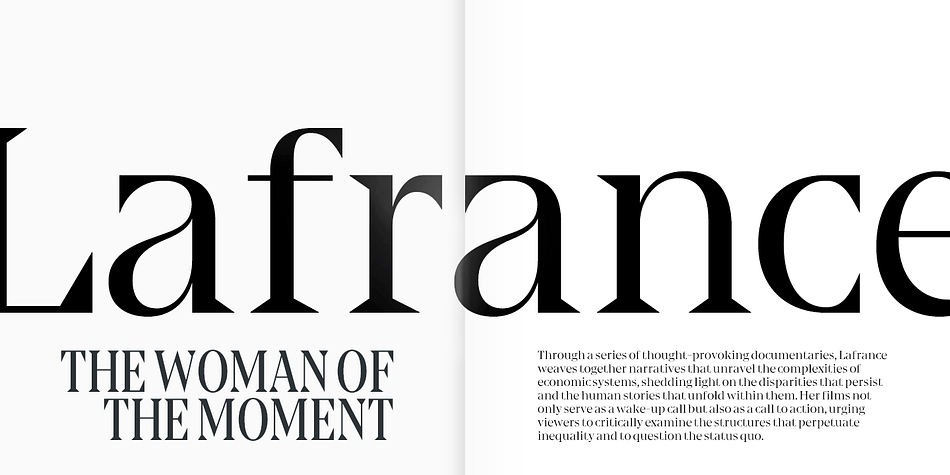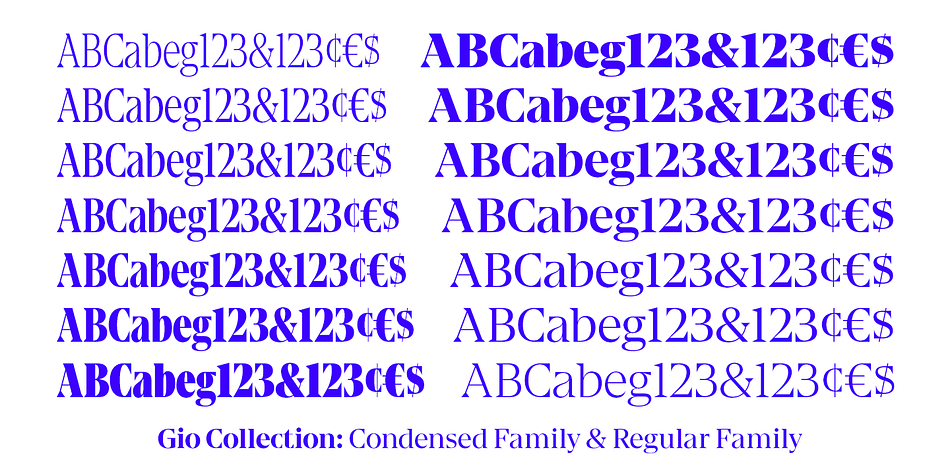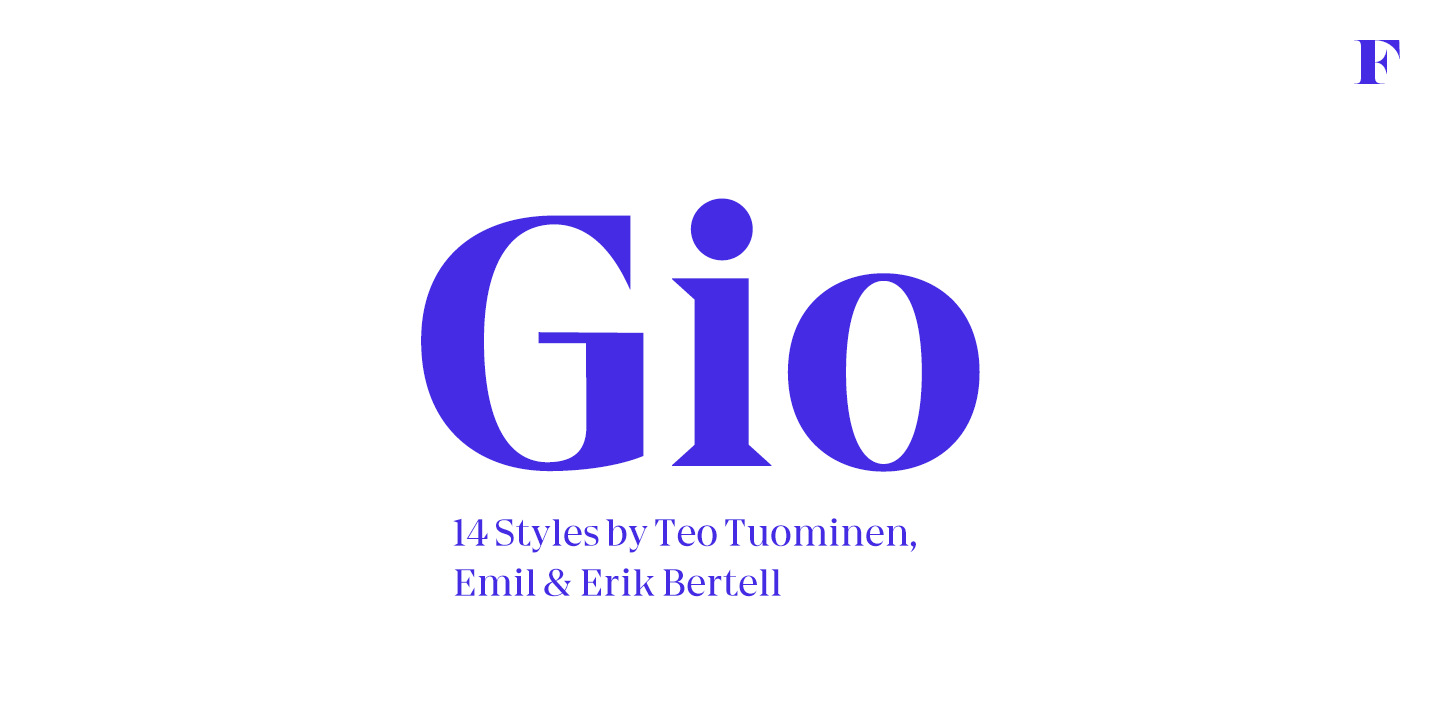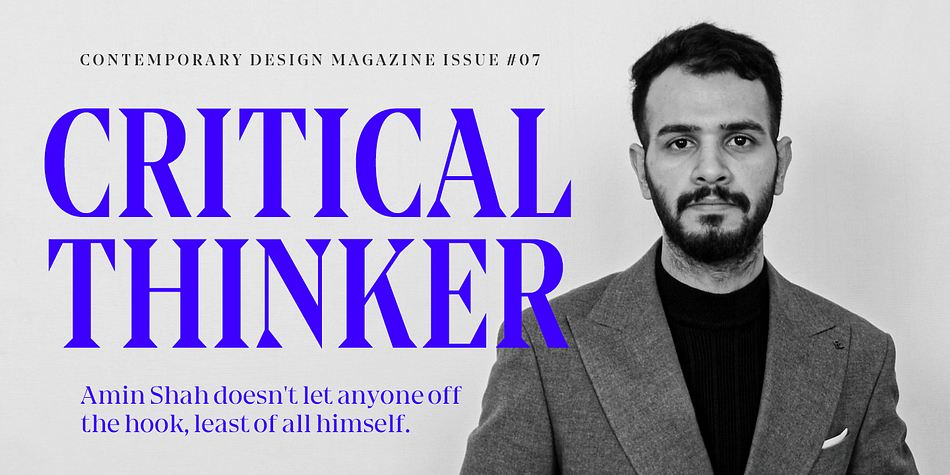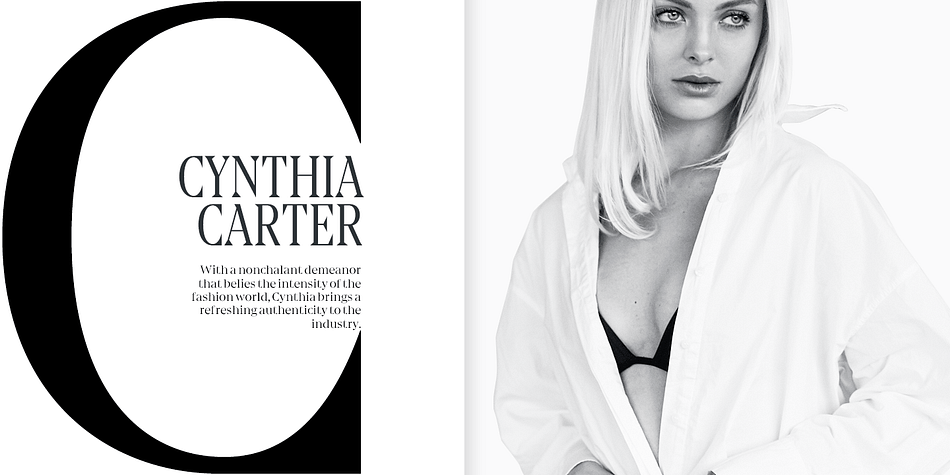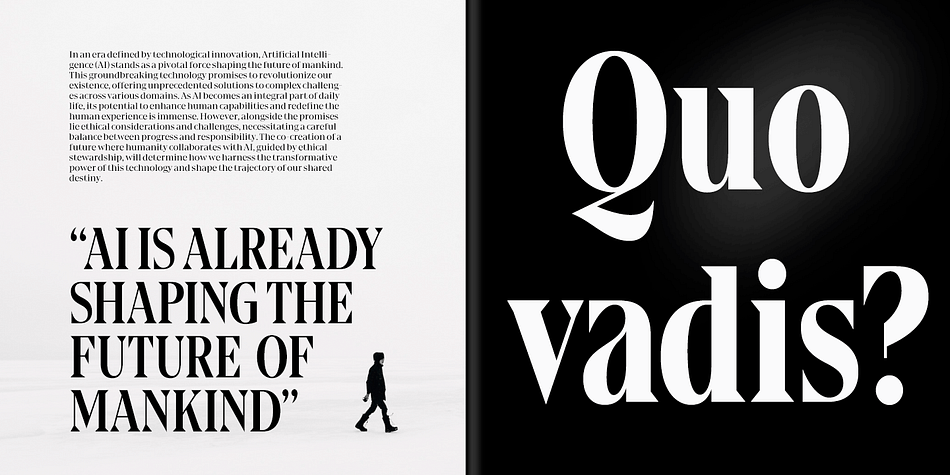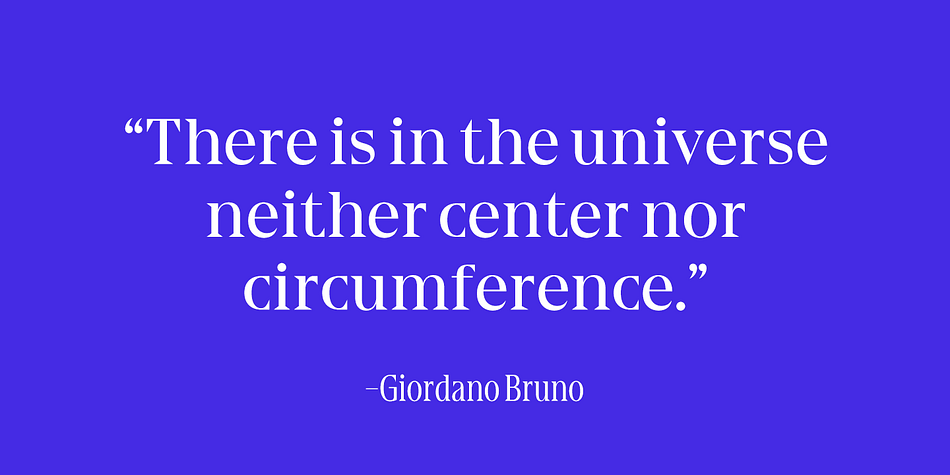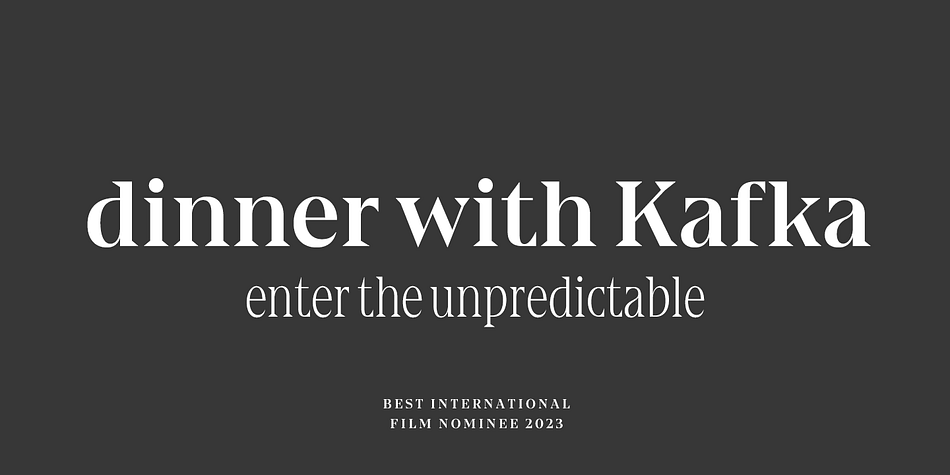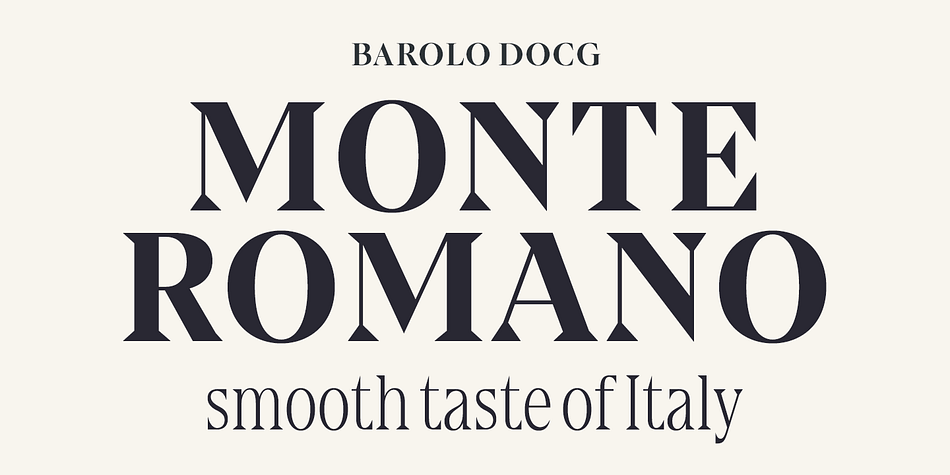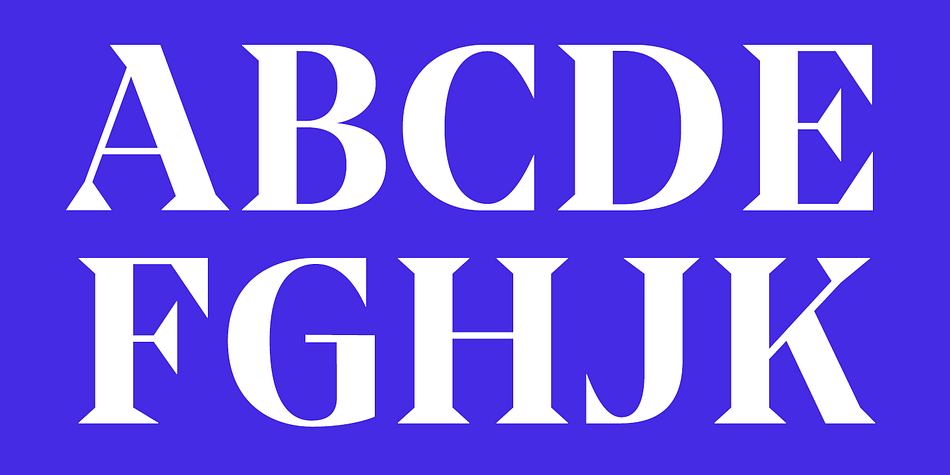
Gio
Designed by Teo Tuominen, Erik Bertell and Emil Bertell, Gio is a serif font family. This typeface has fourteen styles and was published by Fenotype.
Gio is a wedge serif with robust geometric features and subtle details. Available in two widths and seven styles each, Gio boasts a generous x-height and straight endings, maintaining generally consistent proportions. This creates an elegant ensemble, ideal for captivating display purposes. Gio excels in magazine layouts, headlines, as a logotype, or in any display use, imparting a sophisticated modern feel.